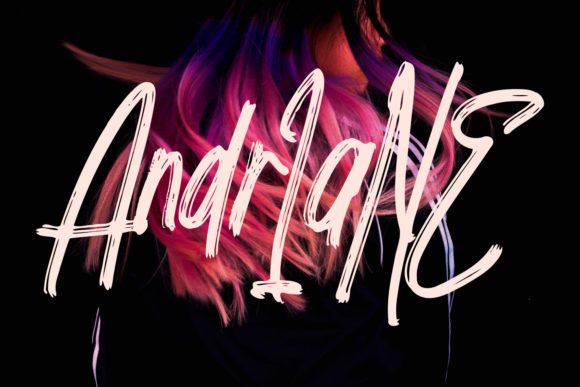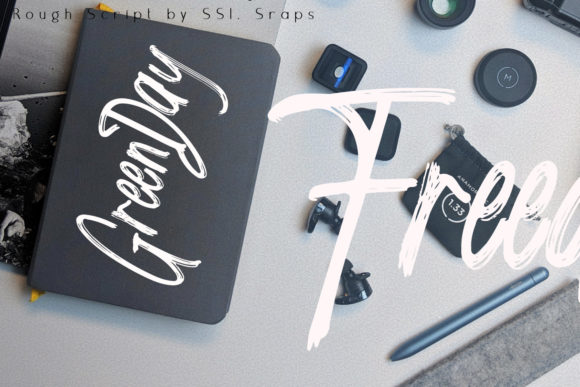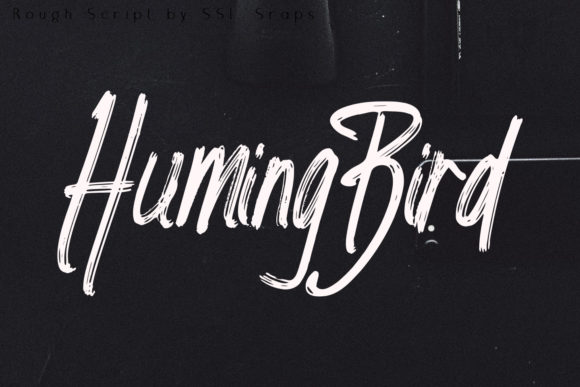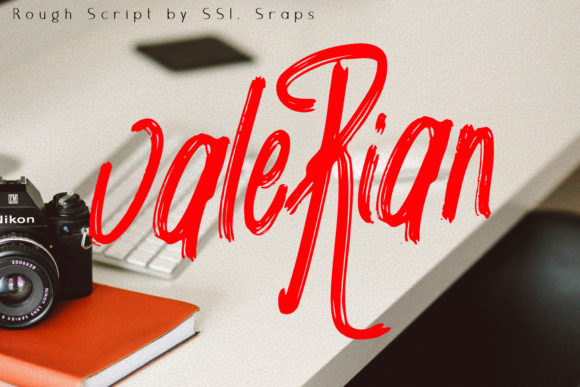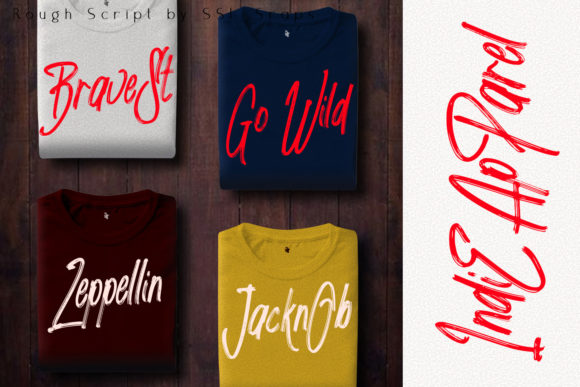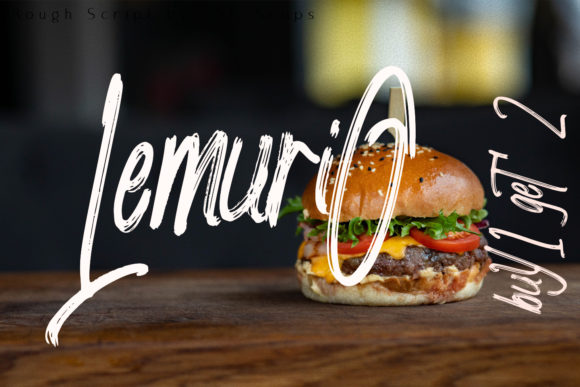
Bravest Font: The Perfect Casual Script for Your Creative Projects
Are you looking for a font that adds a touch of personality to your designs? Look no further than Bravest Font, a casual, fun script font created by using a brush pen. With its clean and quirky style, Bravest is the perfect fit for all of your logos, branding, social media, and crafty DIY projects.
What Makes Bravest Font So Special?
Bravest Font is a unique and versatile font that stands out from the crowd. Its casual, handwritten style gives it a friendly and approachable feel, making it perfect for designers and crafters who want to add a personal touch to their work. The font’s clean lines and subtle imperfections give it a charming, handmade quality that is sure to delight.
Key Features of Bravest Font
- Casual and Fun Script Style: Bravest Font features a playful, cursive script style that is perfect for adding a touch of whimsy to your designs.
- Brush Pen Inspiration: The font’s unique style is inspired by the imperfections and quirks of a brush pen, giving it a charming, handmade quality.
- Clean and Quirky: Bravest Font strikes the perfect balance between clean lines and quirky character, making it perfect for a wide range of creative projects.
- Multipurpose: Whether you’re working on a logo, branding project, social media graphics, or crafty DIY project, Bravest Font is the perfect choice.
Bravest Font is a dream come true for designers and crafters who want to add a personal touch to their work. The font’s casual, handwritten style makes it perfect for a wide range of creative projects, from logos and branding to social media graphics and crafty DIY projects.
Use Bravest Font for:
- Logos and Branding: Create a unique and memorable logo with Bravest Font’s playful, cursive script style.
- Social Media Graphics: Add a touch of personality to your social media graphics with Bravest Font’s clean and quirky style.
- Crafty DIY Projects: Use Bravest Font to add a personal touch to your crafty DIY projects, such as handmade cards, gift tags, and more.
- Stationery and Invitations: Create beautiful, one-of-a-kind stationery and invitations with Bravest Font’s charming, handwritten style.
Why Choose Bravest Font?
With so many fonts to choose from, why choose Bravest Font? Here are just a few reasons why Bravest Font stands out from the crowd:
- Unique and Versatile: Bravest Font is a one-of-a-kind font that can be used for a wide range of creative projects.
- Easy to Read: Despite its playful, cursive script style, Bravest Font is easy to read and understand.
- High-Quality Design: Bravest Font is designed with high-quality craftsmanship in mind, ensuring that it looks great in any context.